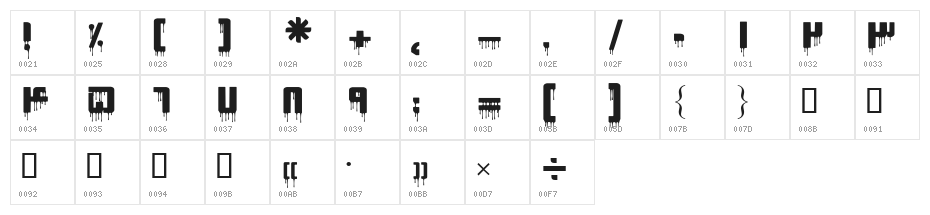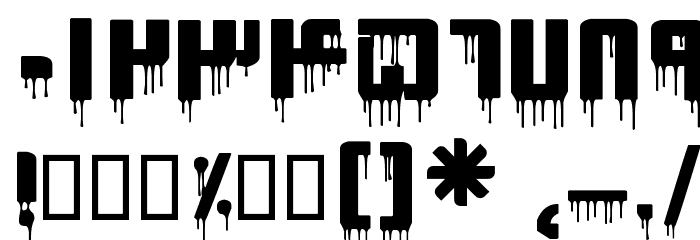
Sinaa Drip Font
Sinaa Drip Description
This font features a bold and dramatic style with a dripping effect that gives it a unique and edgy appearance. The characters are designed to appear as if they are melting or dripping, which adds a dynamic and artistic flair. This style is reminiscent of graffiti or street art, making it ideal for projects that require a bold statement. The uppercase and lowercase letters maintain a consistent dripping effect, while the numbers and special characters also follow this theme, ensuring a cohesive look across all text elements.
| Proposed Projects | Ideal for album covers, event posters, streetwear branding, and urban-themed designs. |